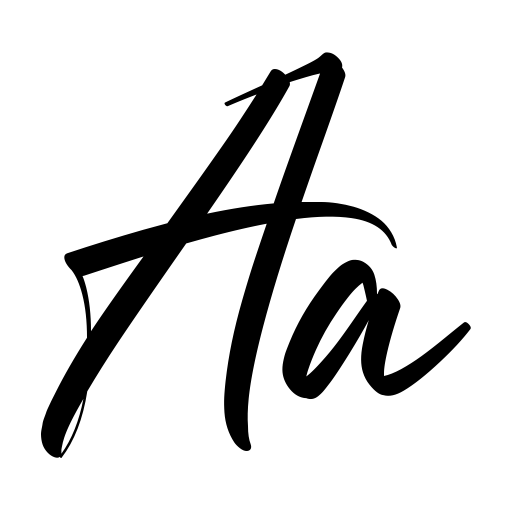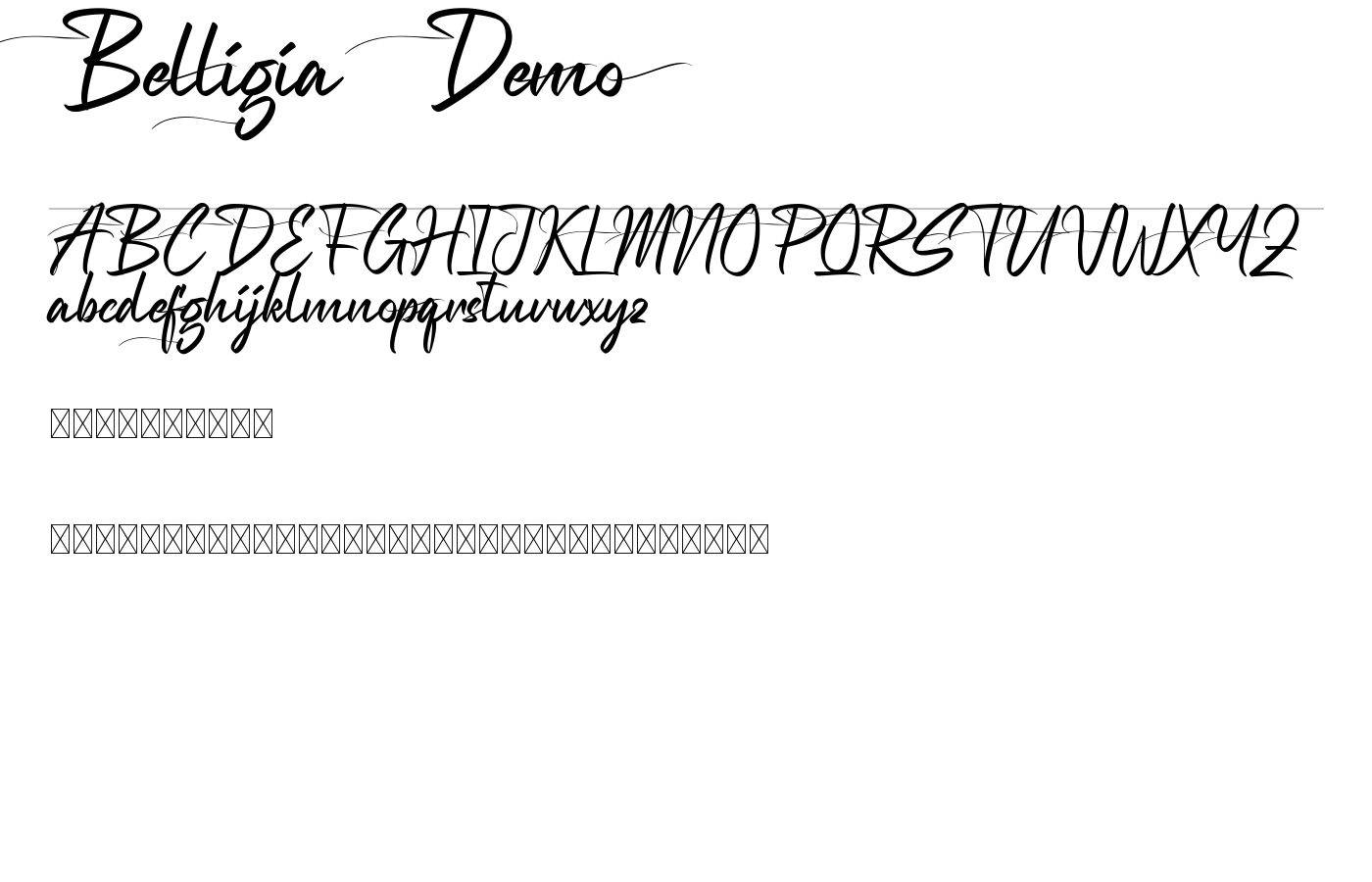
Belligia Demo is an elegant script font with a flowing, handwritten style that combines delicate thin strokes with smooth, graceful curves. It gives a sophisticated and artistic feel, making it ideal for invitations, branding, and creative projects that want to convey a personal, stylish touch. This font shines best in headlines and logos where its expressive character can stand out.
Belligia Demo Font
About Belligia Demo Font
| Font family | Belligia Demo Font |